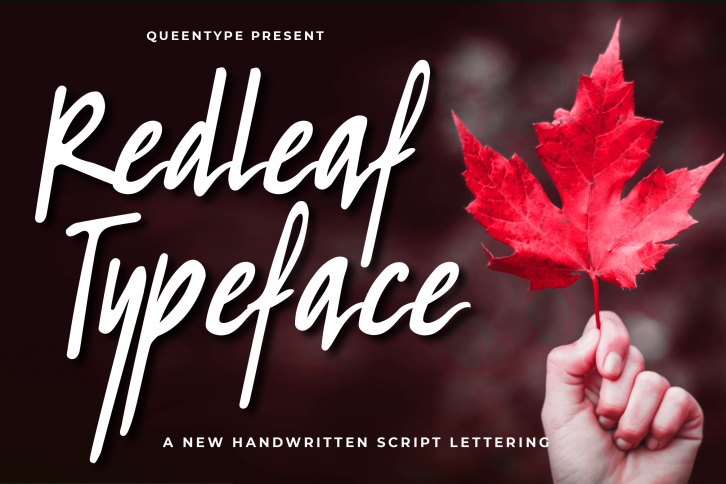
Redleaf Typeface is a gorgeous font that was realeased on August 23, 2019. The font can be used in many style contexts and design environments. Perfect for invitations, magazines, websites, logos, and more! It was designed by Queentype and the file size is 5.52 MB. Thanks for checking out this font!